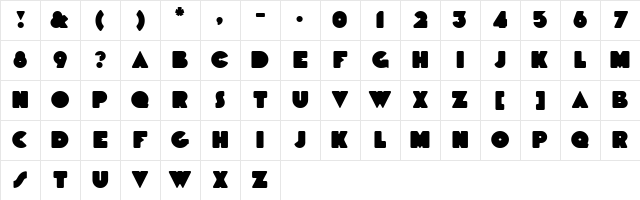
Ciclope Rounded Trial Rounded Free Font
Ciclope Rounded Trial Rounded
Style: Rounded
Foundry: NowType
Designer: Claudio Rocha, Mateus Franco
Design Context for Ciclope Rounded Trial
Ciclope Rounded Trial softens its letterforms with rounded terminals, giving it an approachable, friendly quality that works well in consumer-facing and digital contexts.
Font Pairing: Pairs well with a rounded or humanist sans for body copy, maintaining the friendly tone without relying on Ciclope Rounded Trial to carry extended reading.
Pro Tip: Use Ciclope Rounded Trial for UI elements, app interfaces, and anywhere a friendly, approachable tone needs to be maintained without sacrificing clarity.